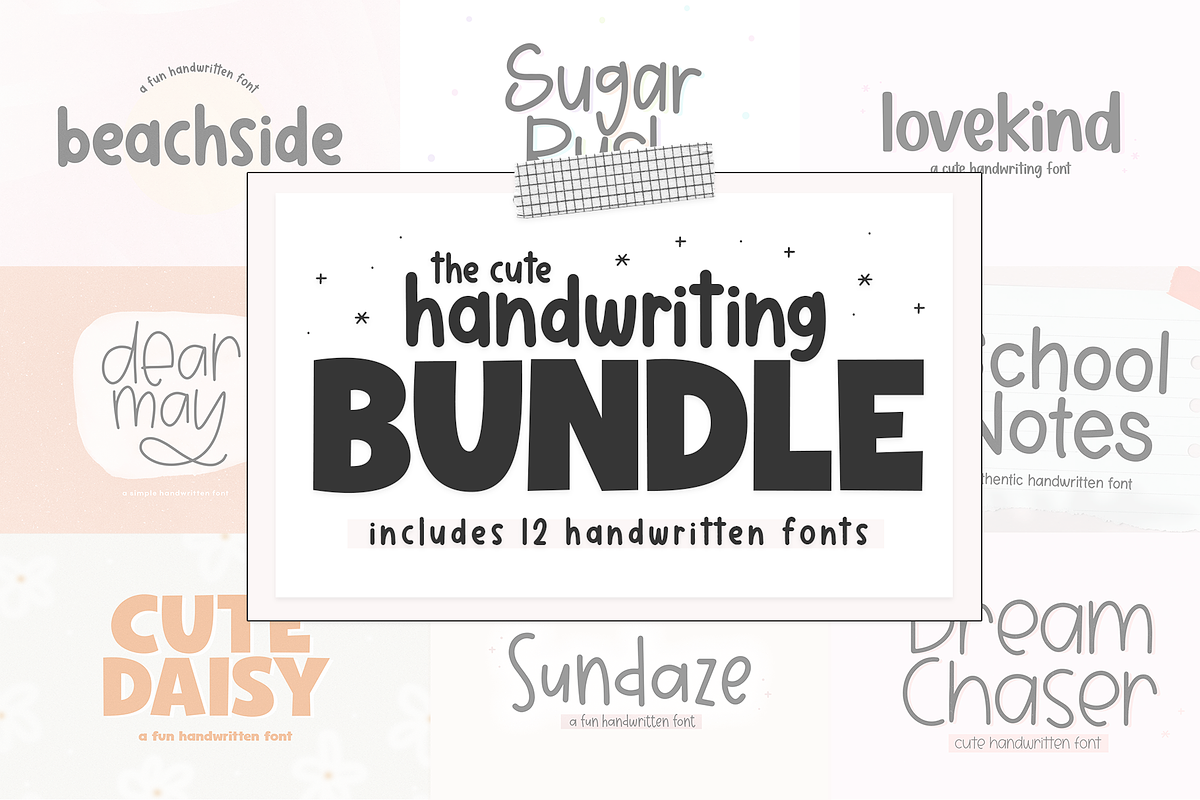
The Cute Handwriting Font Bundle is perfect for children's book illustrations, greeting cards, educational materials, scrapbooking projects, baby shower invitations, birthday party designs, social media posts, craft projects, journal covers, sticker designs, packaging for kids' products, and playful branding projects.
The Cute Handwriting Font Bundle is exciting because it captures the innocent charm and natural spontaneity of authentic children's handwriting, bringing warmth and personality to every design project. This delightful collection features organic letterforms with playful irregularities that create genuine emotional connections with audiences. The fonts maintain perfect readability while preserving the whimsical character that makes handwritten text so appealing and memorable.
The Cute Handwriting Font Bundle includes diverse font families: Primary Script, Secondary Script, Playful Bold, Light Handwriting, Crayon Style, Marker Effect, Pencil Texture, Doodle Variations, Special Characters, and Decorative Elements, offering comprehensive creative solutions for various design needs.
This charming font collection transforms digital typography into heartfelt personal communications through its authentic handcrafted appearance and endearing character variations. The Cute Handwriting Font Bundle Free Download provides designers with access to premium typography that instantly adds warmth, approachability, and human touch to any project. The bundle's versatile styles accommodate different age groups and design contexts while maintaining consistent quality and visual appeal.
Creative professionals and educators love The Cute Handwriting Font Bundle for its ability to create engaging, kid-friendly designs that resonate with both children and parents. Each font within the bundle demonstrates unique personality traits, from careful beginner writing to confident elementary styles, providing authentic options for various educational and commercial applications. The extensive character sets include numbers, punctuation, and special symbols designed with the same playful aesthetic.
The development process behind The Cute Handwriting Font Bundle involved studying genuine children's handwriting samples to capture authentic movement patterns and natural letter formations. This research-based approach ensures each font maintains realistic proportions and spacing while optimizing digital performance across all platforms and devices.